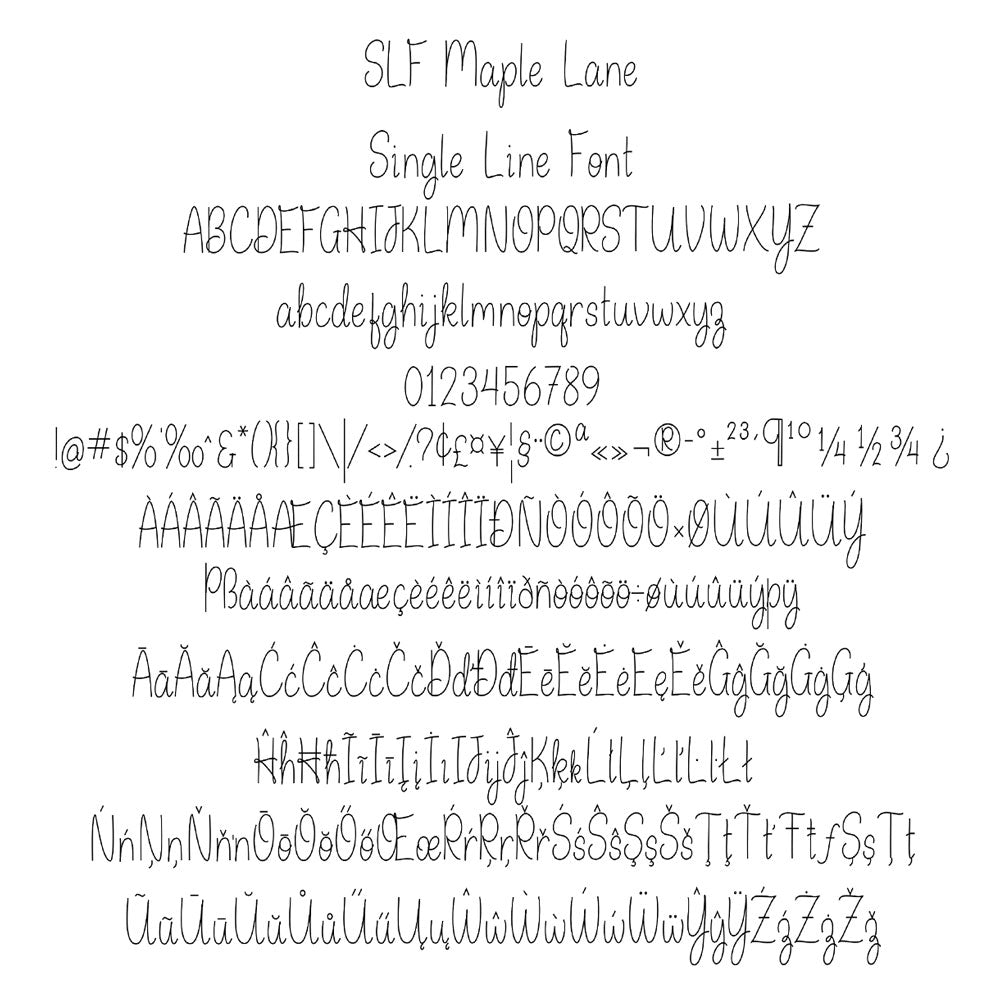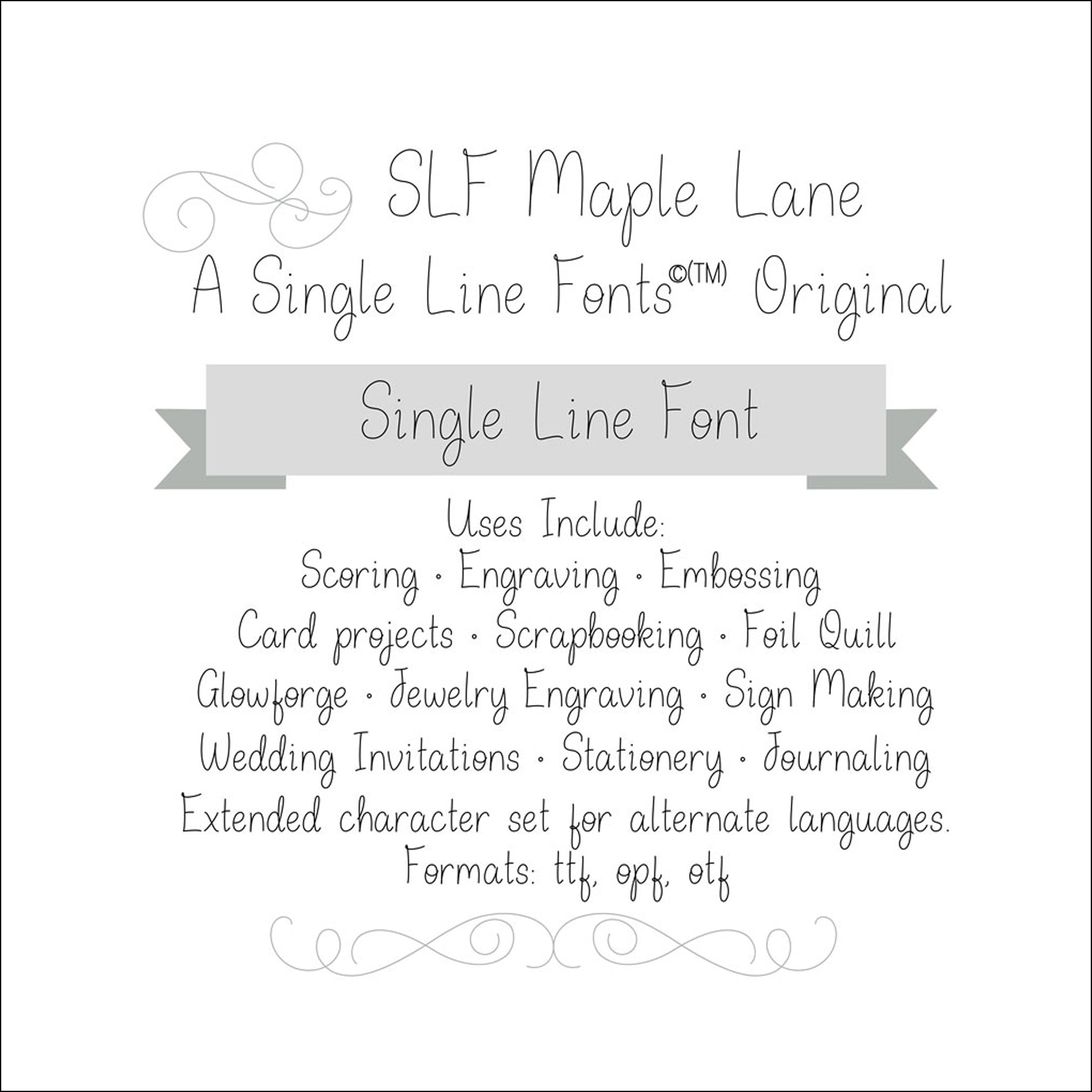
SLF Maple Lane – Warm Single Line Print Font for Engraving & Crafting
SLF Maple Lane is a warm, inviting single line print font with smooth strokes and easy readability. Its classic letterforms work beautifully for engraving, scoring, sketch pen tools, CNC projects, and heartfelt creative designs. This versatile font is perfect for signage, labels, cards, decor, and personalized gifts.
This monoline font includes a full character set with uppercase and lowercase letters, numbers, punctuation, symbols, and accented characters for multilingual support.
• Signs, labels, cards, and heartfelt craft projects